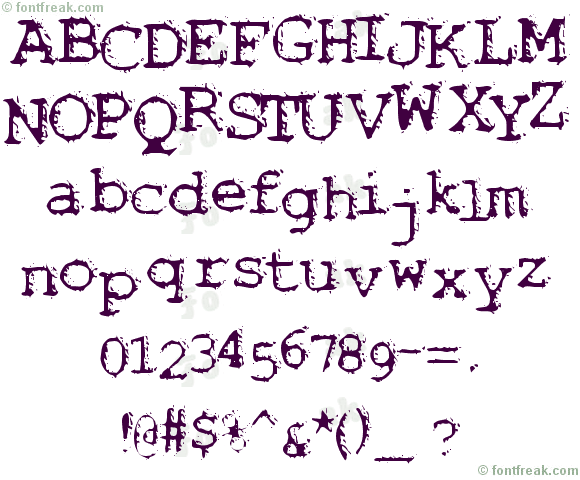
Noisebaby
About Niosebaby
Niosebaby is a captivating display font created by Comicbabies, released as freeware in 1997. This unique typeface stands out with its playful and quirky design, making it an excellent choice for projects that require a touch of whimsy. Niosebaby falls into the decorative font category, characterized by its bold strokes and irregular shapes that add personality to any text. The font features a medium stroke weight, with lively characters that maintain a consistent spacing, allowing for easy readability while still embracing its artistic flair. Its cheerful aesthetic is complemented by occasional decorative elements, giving it a hand-crafted feel that resonates well with creative projects.
This font is ideal for a variety of use cases, including vibrant wedding invitations that seek to convey joy and celebration, eye-catching movie posters that demand attention, and engaging restaurant menus that invite patrons to explore the culinary offerings. Additionally, Niosebaby can enhance children’s book covers, making it a favorite among authors and illustrators targeting a younger audience. Small business owners and graphic designers will find this font particularly appealing for branding efforts, as its distinct style can help differentiate products in a crowded market.
In summary, Niosebaby font free download offers an imaginative and versatile option for a wide range of projects. Its playful design and unique character set it apart from more conventional fonts, allowing users to express creativity while maintaining a sense of fun and approachability. Whether for personal or professional use, Niosebaby is sure to elevate any design with its distinctive charm.